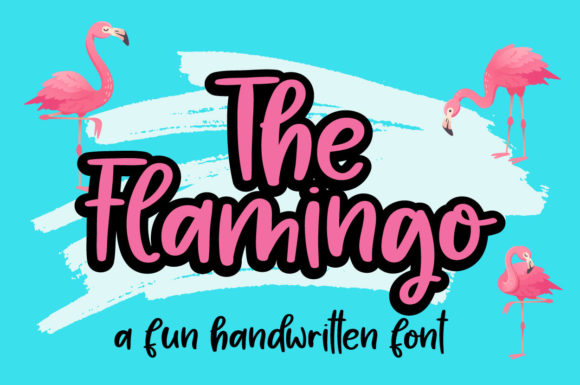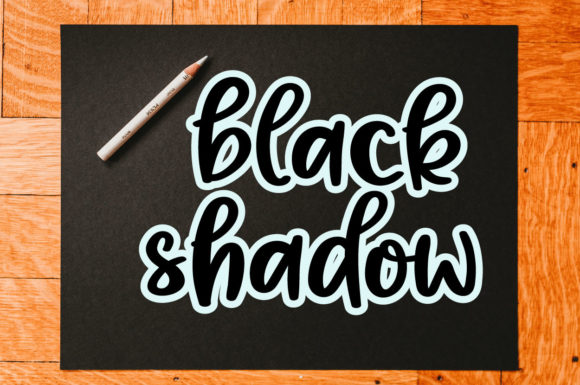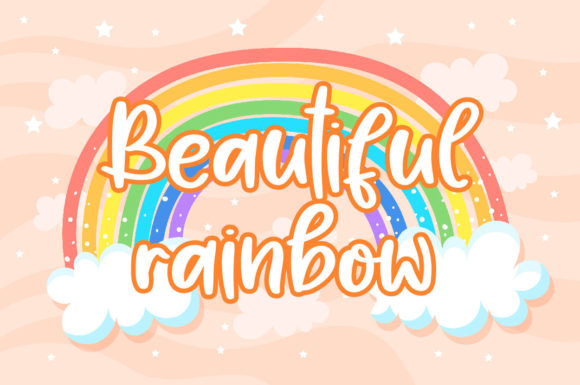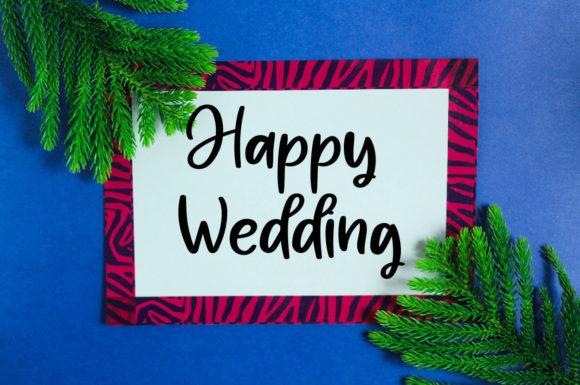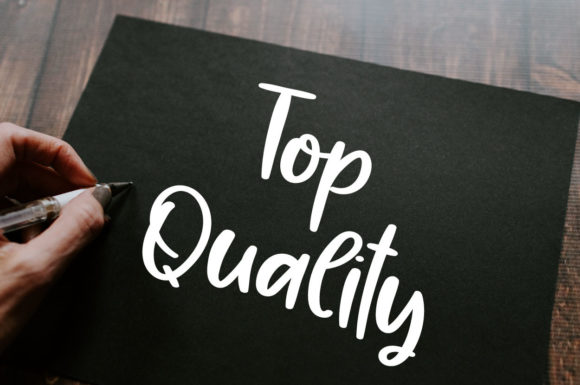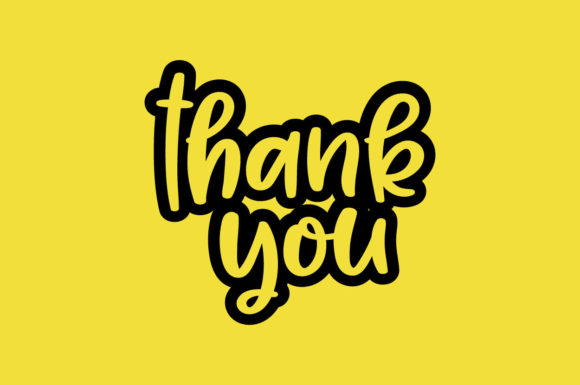
The Flamingo Font
About The Flamingo Font
The Flamingo is a cool and fun looking handwritten font. No matter the topic, this font will be an incredibly asset to your fonts’ library, as it has the potential to elevate any creation.